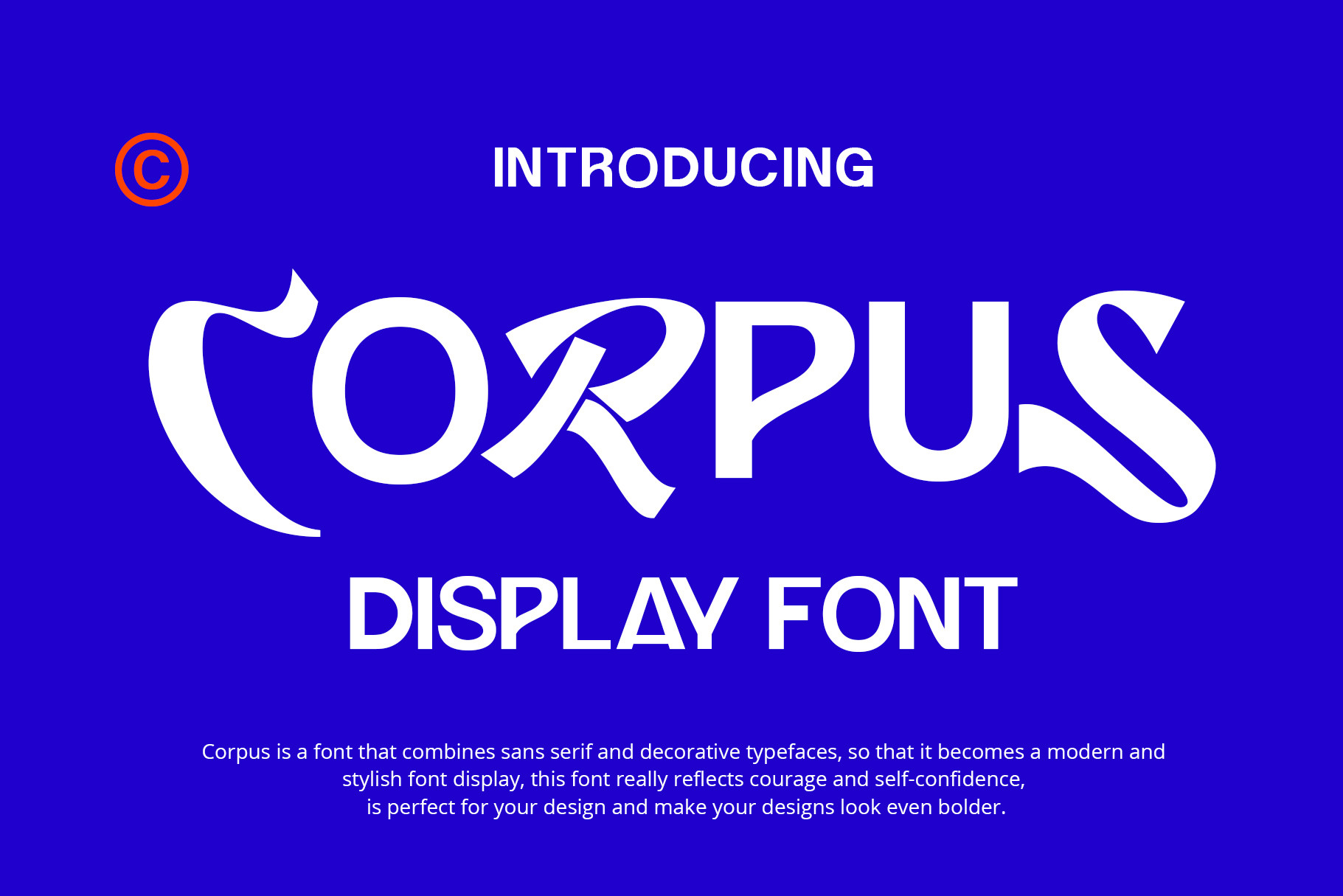
Corpus Font
Corpus is a font that combines sans serif and decorative typefaces, so that it becomes a modern and stylish font display, this font really reflects courage and self-confidence, is perfect for your design and make your designs look even bolder.
It works perfectly for creative project such as logo, T-shirt / apparel, badge, invitation, packaging, headline, poster, magazine, greeting card, and wedding invitation. You can access the open type features and multilingual on mostly Adobe programs, such as Adobe Indesign, Adobe Illustrator, Adobe photoshop. etc.